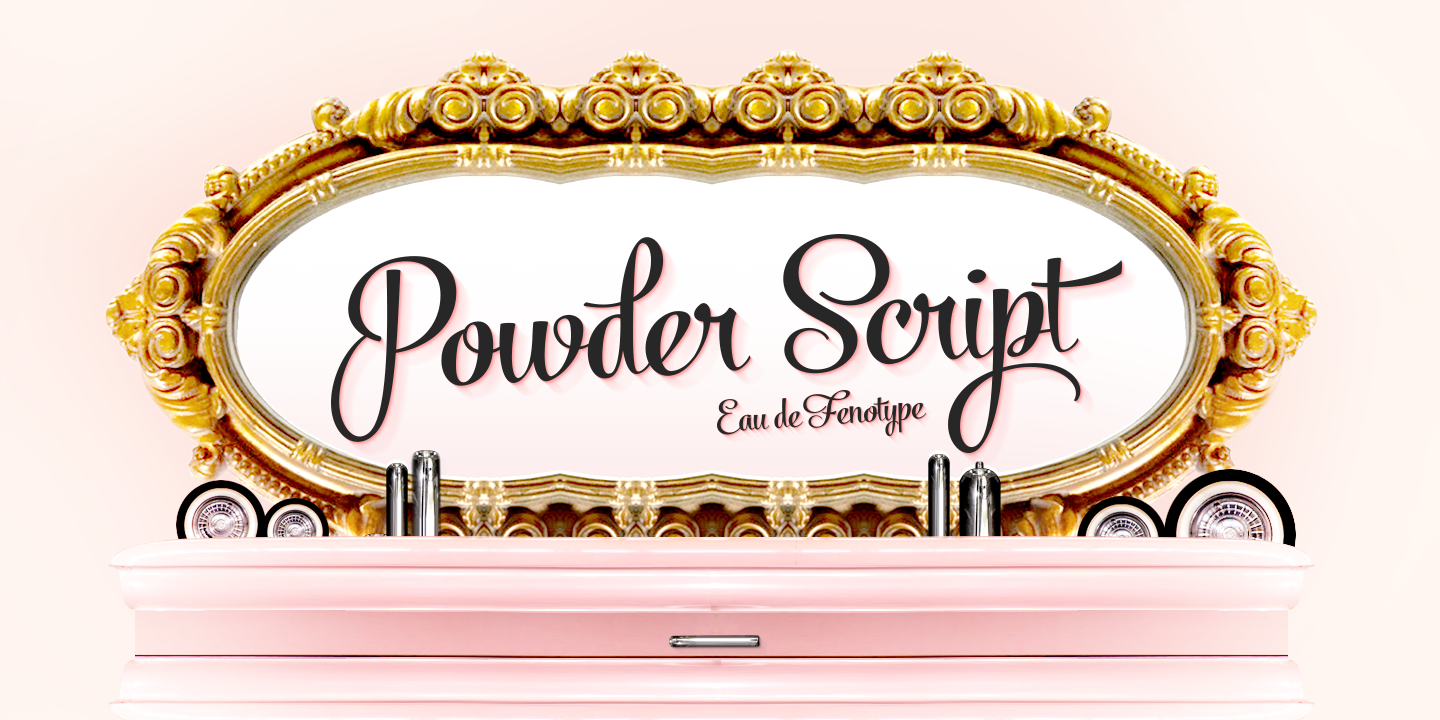
The Powder Script Font is an excellent choice for designs that aim for a delicate, elegant, and distinctly luxurious handwritten aesthetic, often reminiscent of a soft, fine powder or a gentle flourish. Imagine it gracefully adorning high-end cosmetic packaging, adding an exclusive charm to bespoke event invitations, or lending an exquisite feel to fashion brand collateral. It's also perfectly suited for personalized stationery, elegant greeting cards, refined social media announcements, and any project where you want to convey a sense of grace, subtlety, and a touch of enchanting beauty. Its flowing lines, gentle curves, and unique character make it ideal for conveying elegance and a refined, artistic flair.
What makes the Powder Script Font so exciting is its ability to instantly infuse a design with a feeling of lightness and sophisticated charm. It often features delicate ligatures, stylistic alternates, and smooth connections that mimic skilled hand-lettering, making it feel both personal and polished. This font has a luxurious and inviting personality that can instantly elevate your design, making it feel both intimate and supremely stylish. It's designed to capture attention with its distinctive elegance, ensuring your message is not just seen, but appreciated for its refined artistry.
The Powder Script Font family typically might focus on a few key weights to best maintain its distinctive character, with a strong emphasis on stylistic sets, swashes, and a wide array of ligatures crucial for creating authentic and varied script effects. While it might not always have an extensive range of weights, its strength lies in its rich OpenType features that allow for highly customized and decorative typographical compositions. These variations empower designers to create a truly captivating and memorable display, ensuring the Powder Script Font Free Download can adapt to a wide array of projects while maintaining its signature, elegant charm.